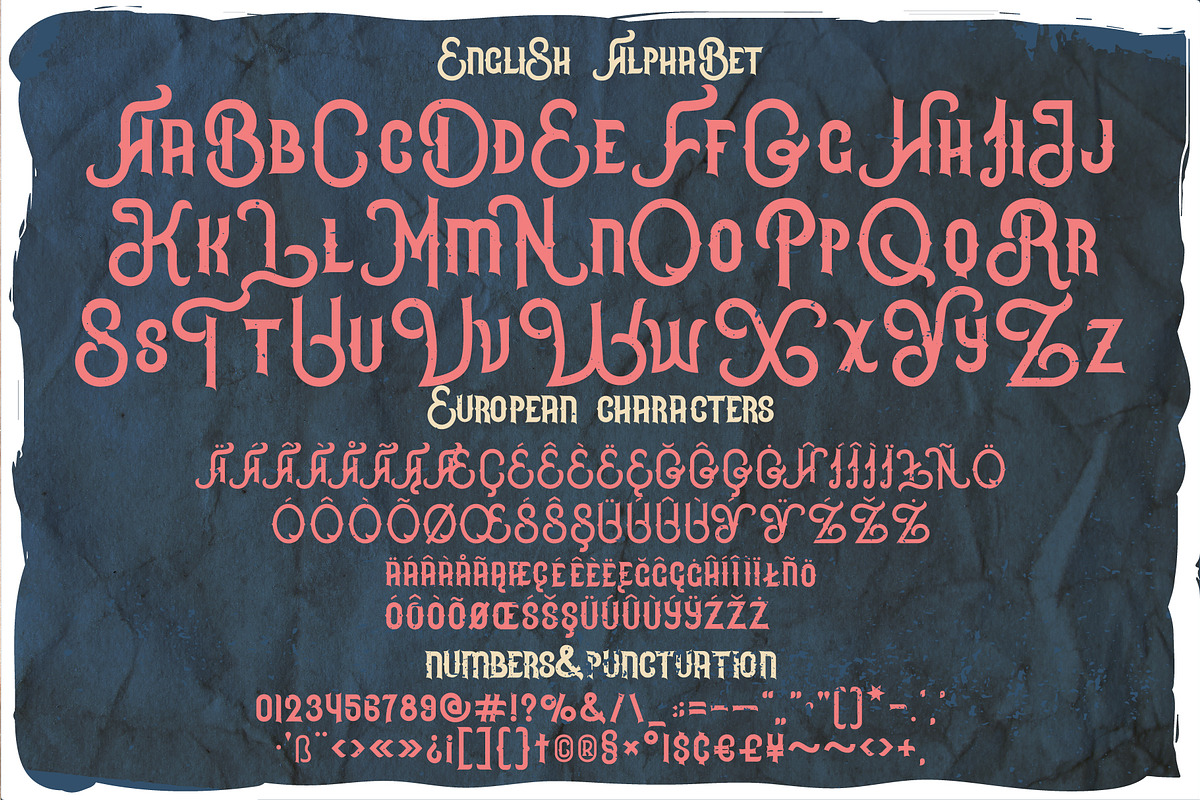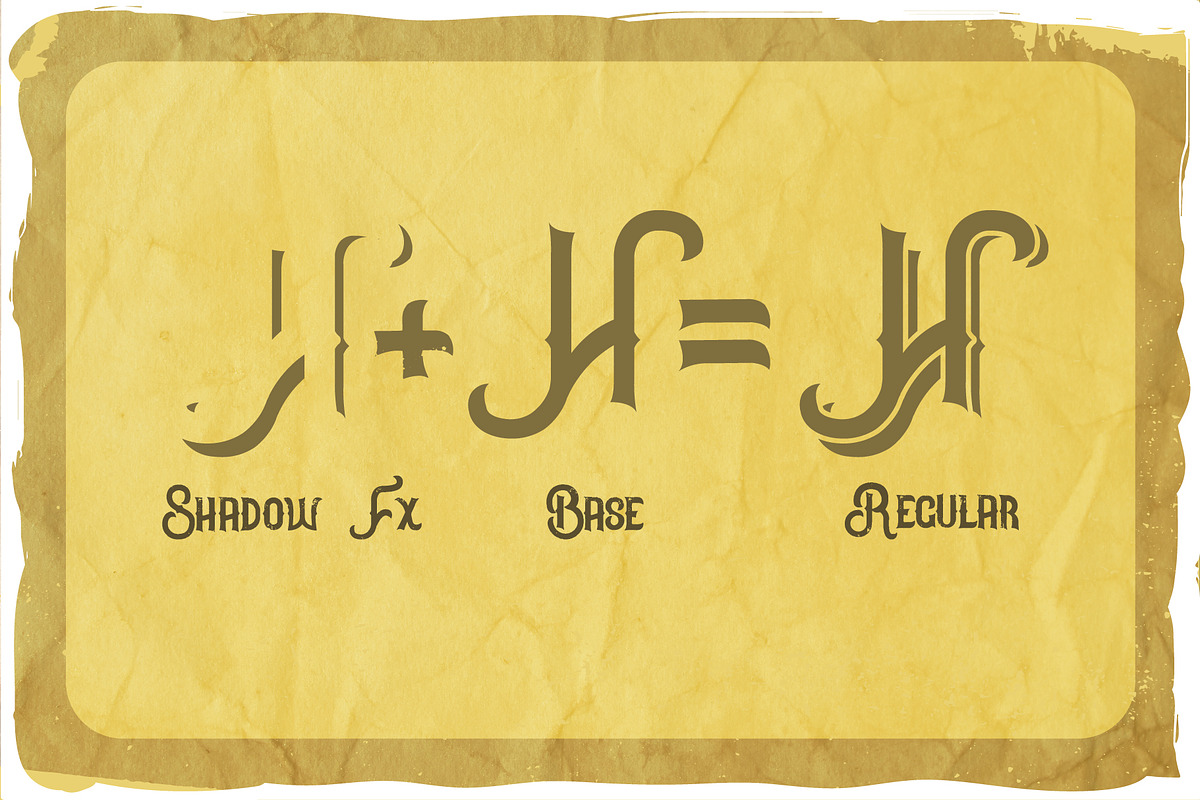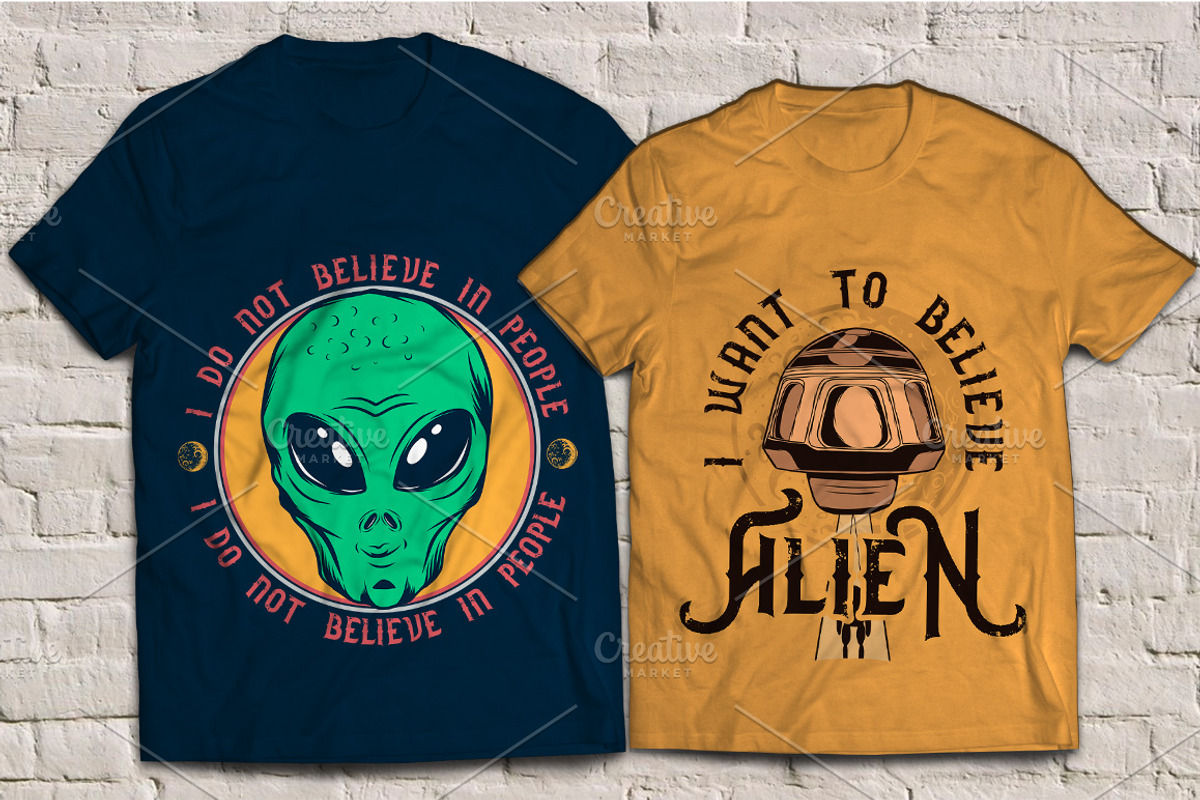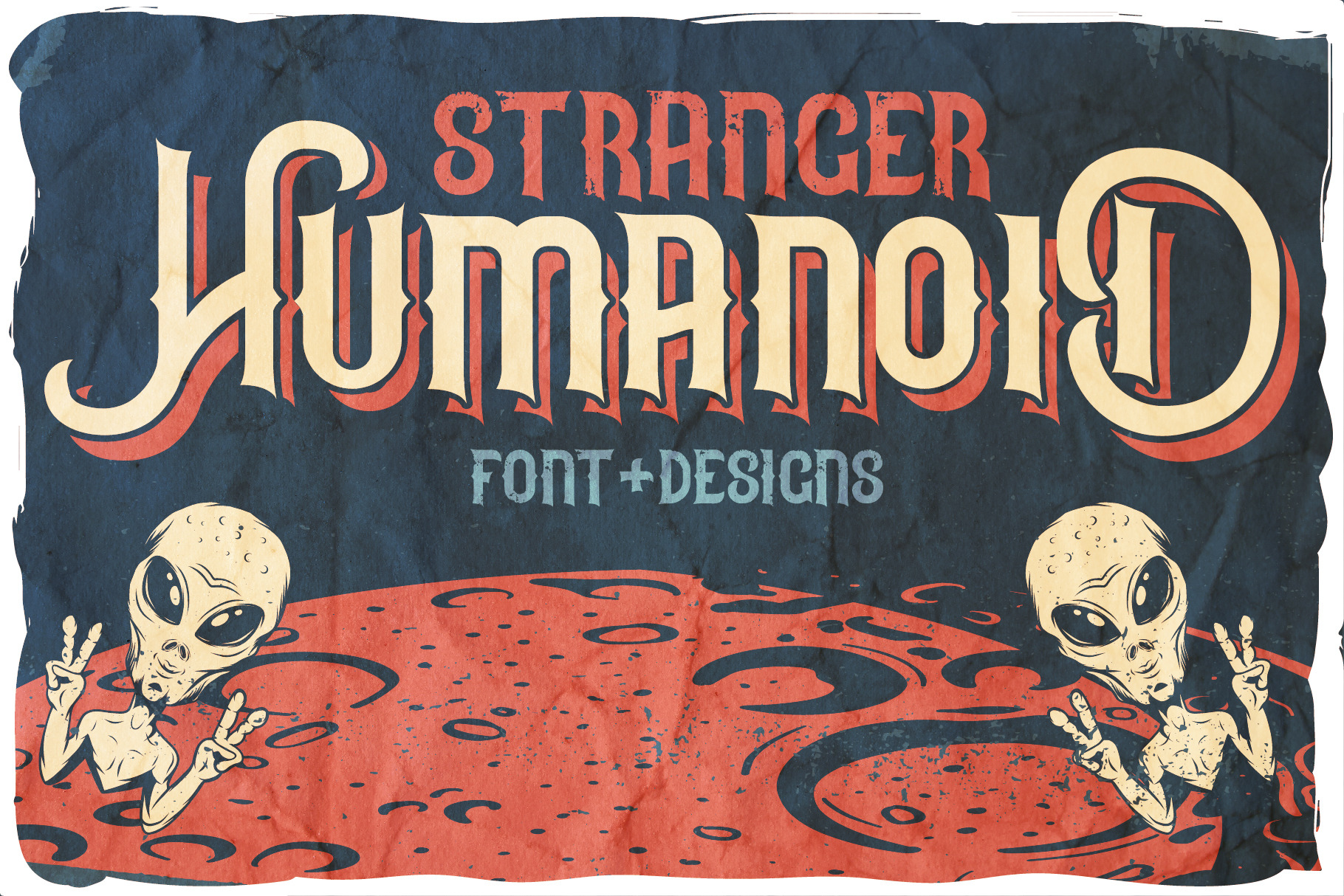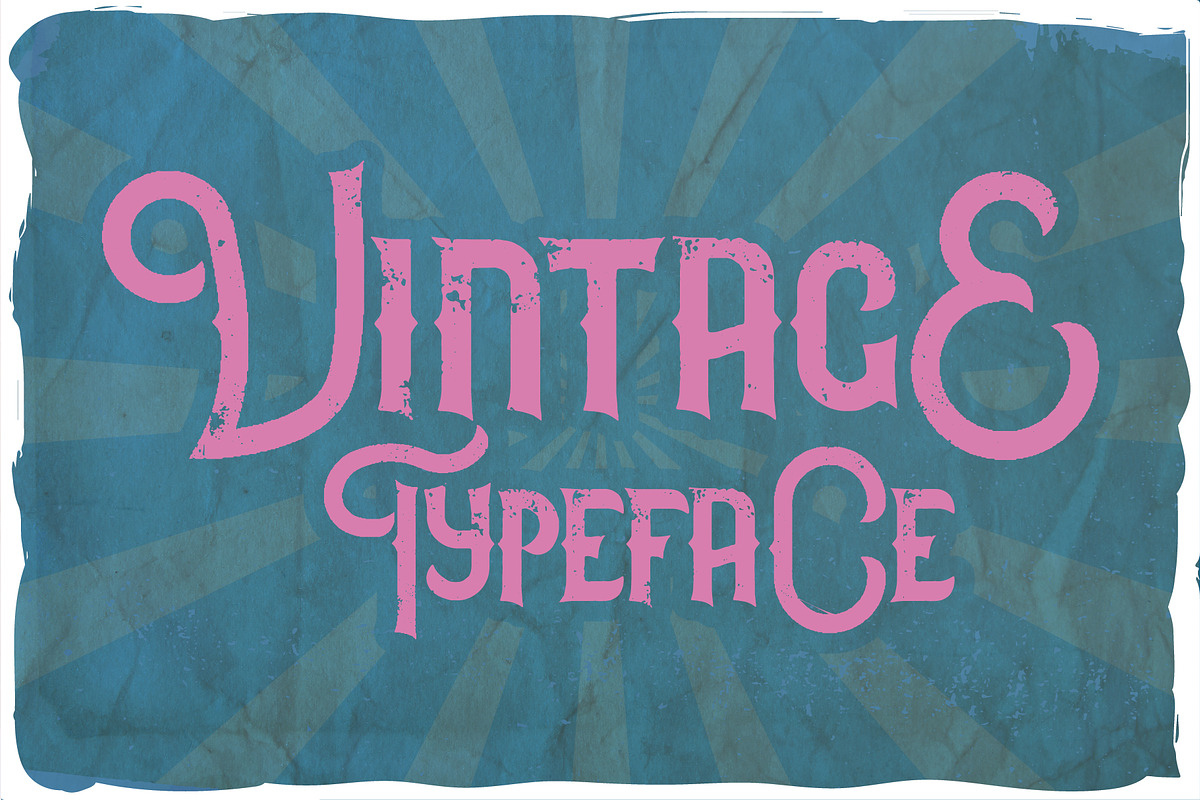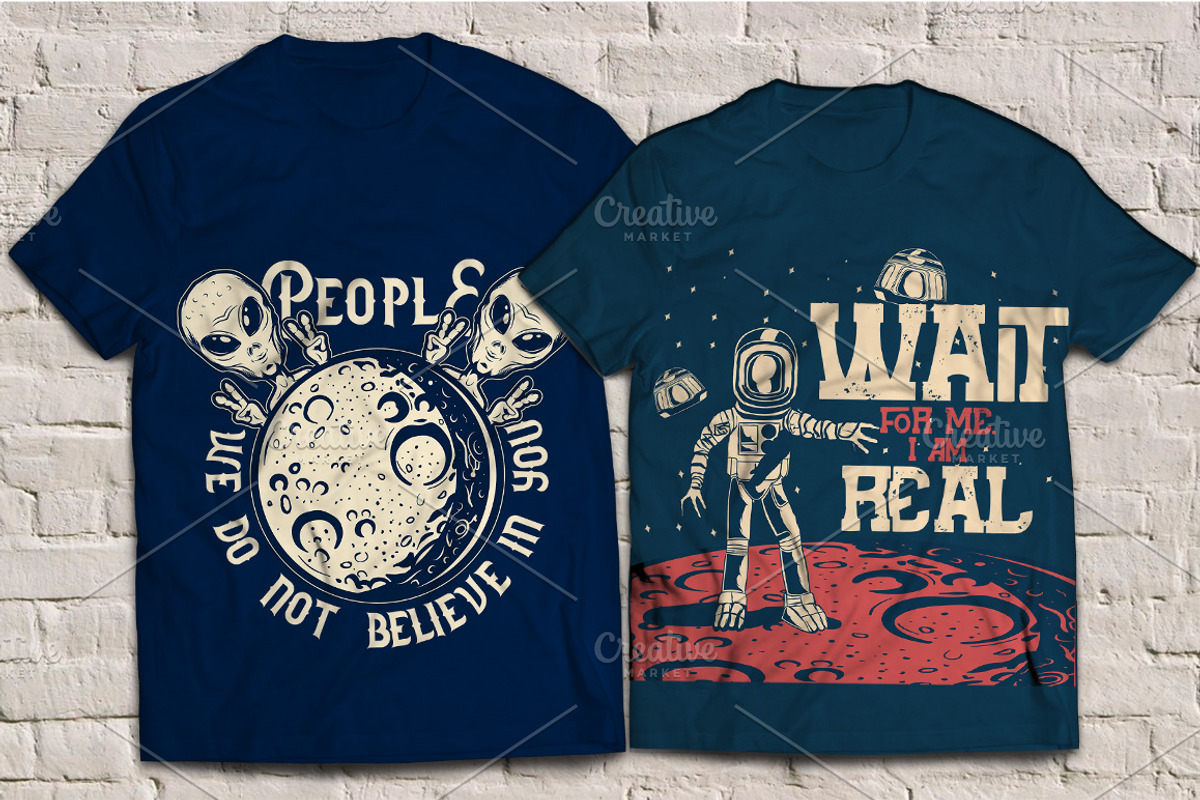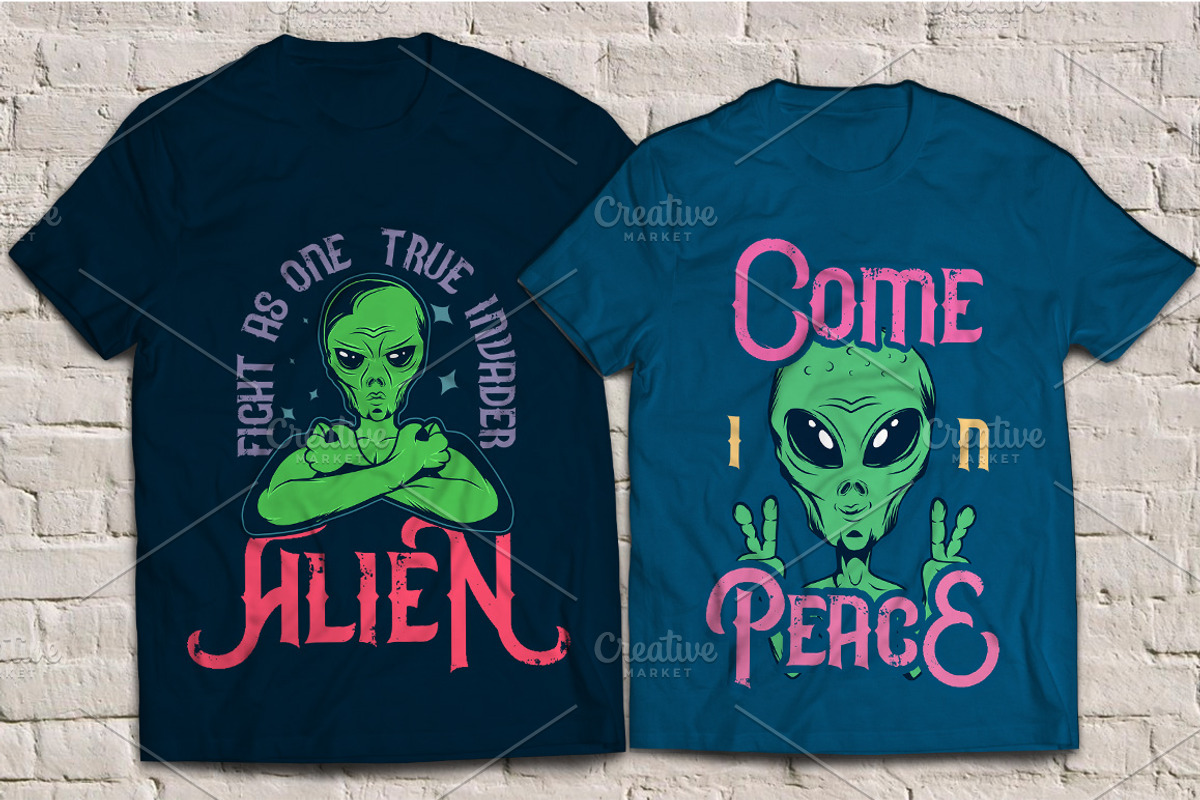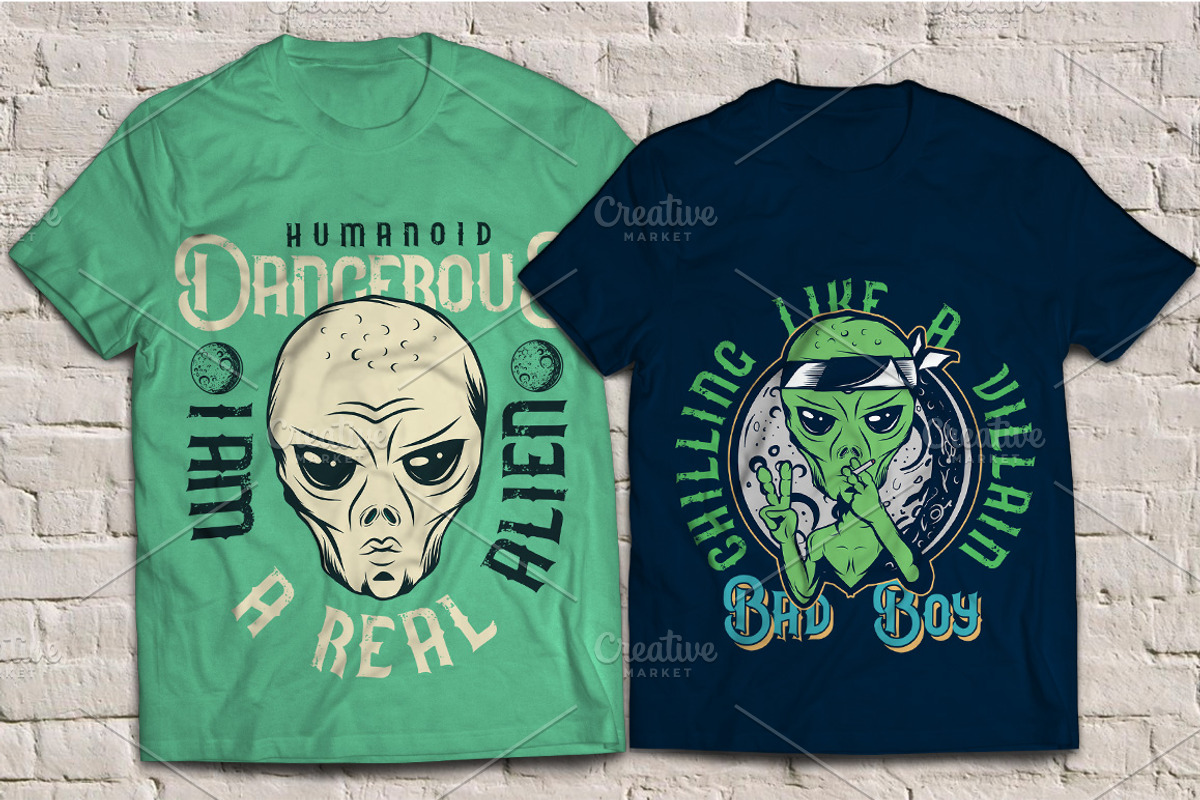
Stranger humanoid font and designs
Introducing my newest font called "Stranger Humanoid". It has wide language support of multilingual characters (check out all available characters in previews). Bonus 8 t-shirt designs. This font will look good on any vintage-styled designs like a poster, T-shirt, label, logo, etc.
- A lot of additional symbols, alternative characters, and multilingual support.